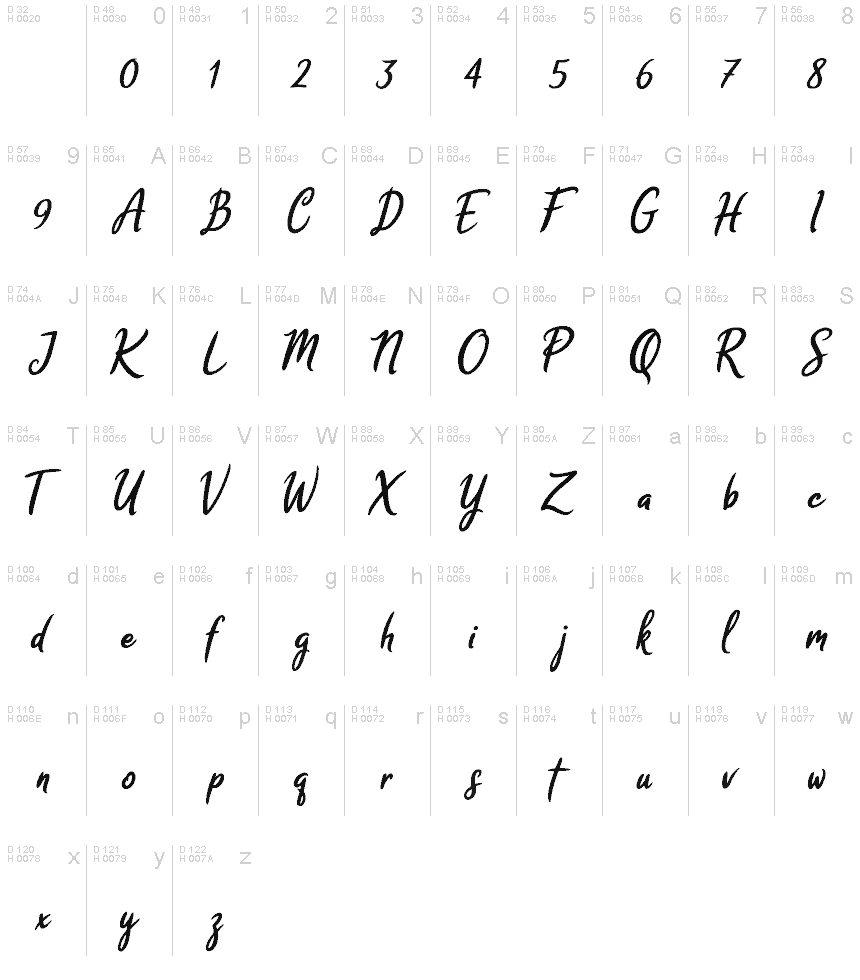
Melodya Chatrina Italic
Melodya Chatrina Italic, crafted by the talented designer cove703, is a captivating handwritten font that exudes a sense of effortless elegance and charm. With its condensed width and striking calligraphic strokes, this font showcases a delightful balance between structure and fluidity. The organic, brush-like lines create a captivating visual rhythm, inviting the viewer to indulge in the font's expressive and whimsical nature.
This versatile font lends itself beautifully to a wide range of design applications, from high-end branding and editorial layouts to invitations, greeting cards, and social media content. Its unique character and personality make it an ideal choice for projects that aim to convey a sense of authenticity, personality, and a touch of sophistication.